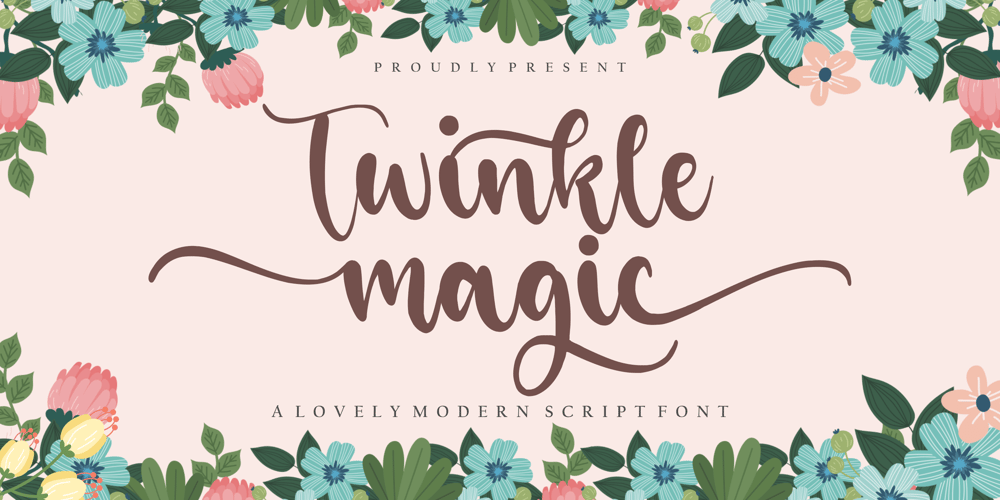
Twinkle Magic
Twinkle Magic font
Twinkle Magic Font Family was designed by Restu Angga and published by Balpirick. Twinkle Magic contains 1 styles and family package options. Twinkle Magic is a Lovely Modern Script Font.Twinkle Magic is an enchanting handwritten font. This versatile script font has a wide spectrum of applications ranging from greeting cards to headlines and is guaranteed to add a romantic feel to your next project.This font is PUA encoded which means you can access all of the beautiful glyphs and swashes with ease!Twinkle Magic also multilingual support.Uppercase & Lowercase font Stylistic Alternates Ligatures Symbols & Punctuation OpenType Features.Enjoy the font, feel free to comment or feedback, send me PM or email.